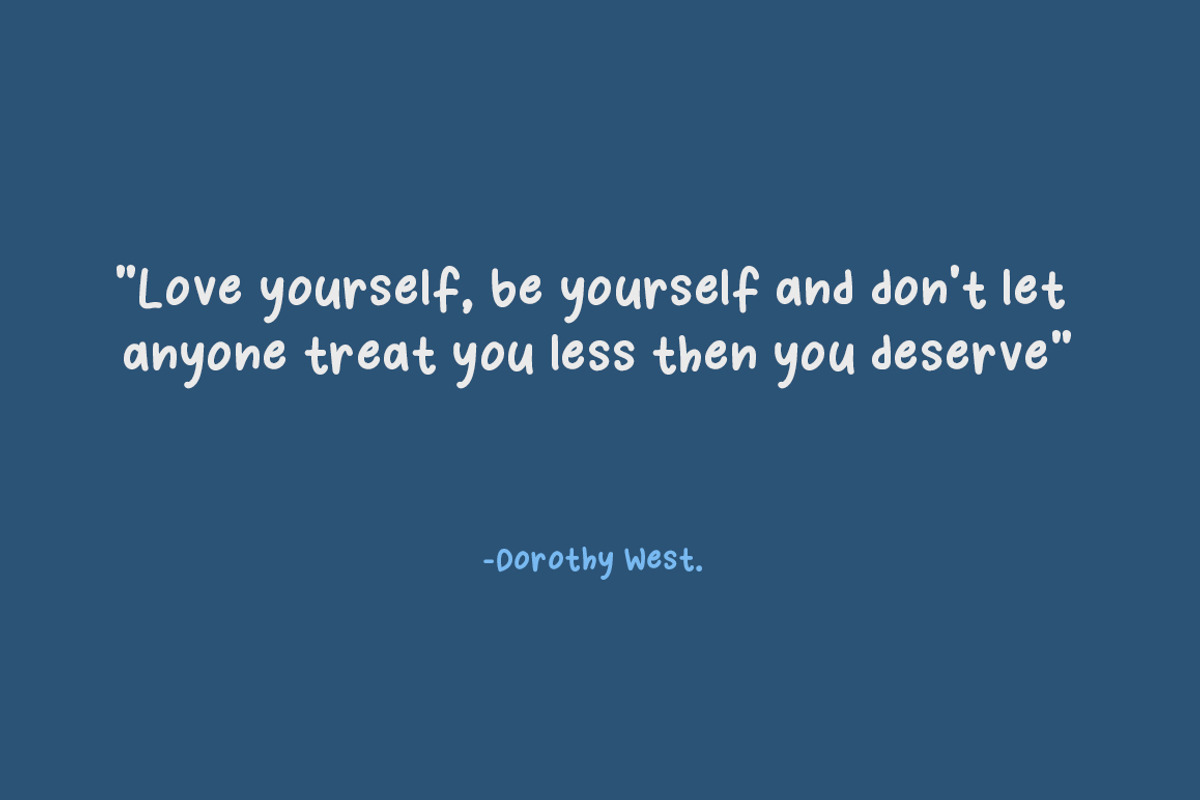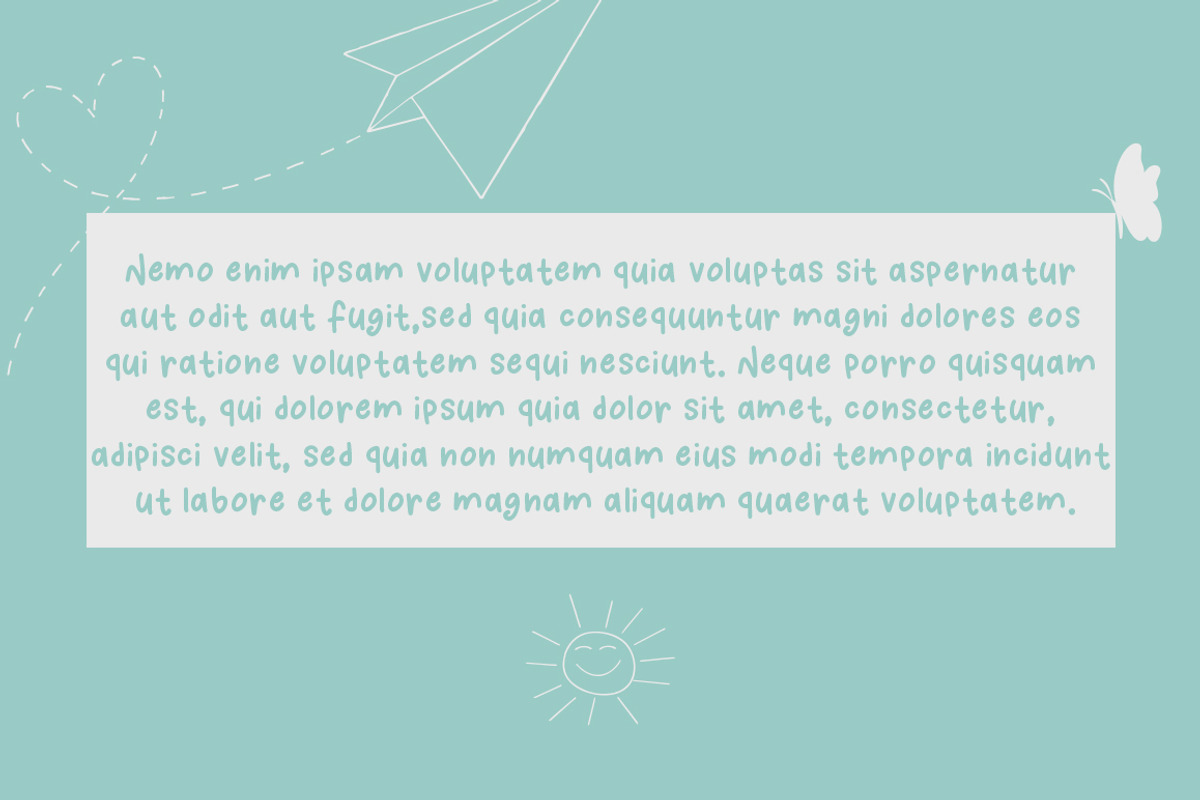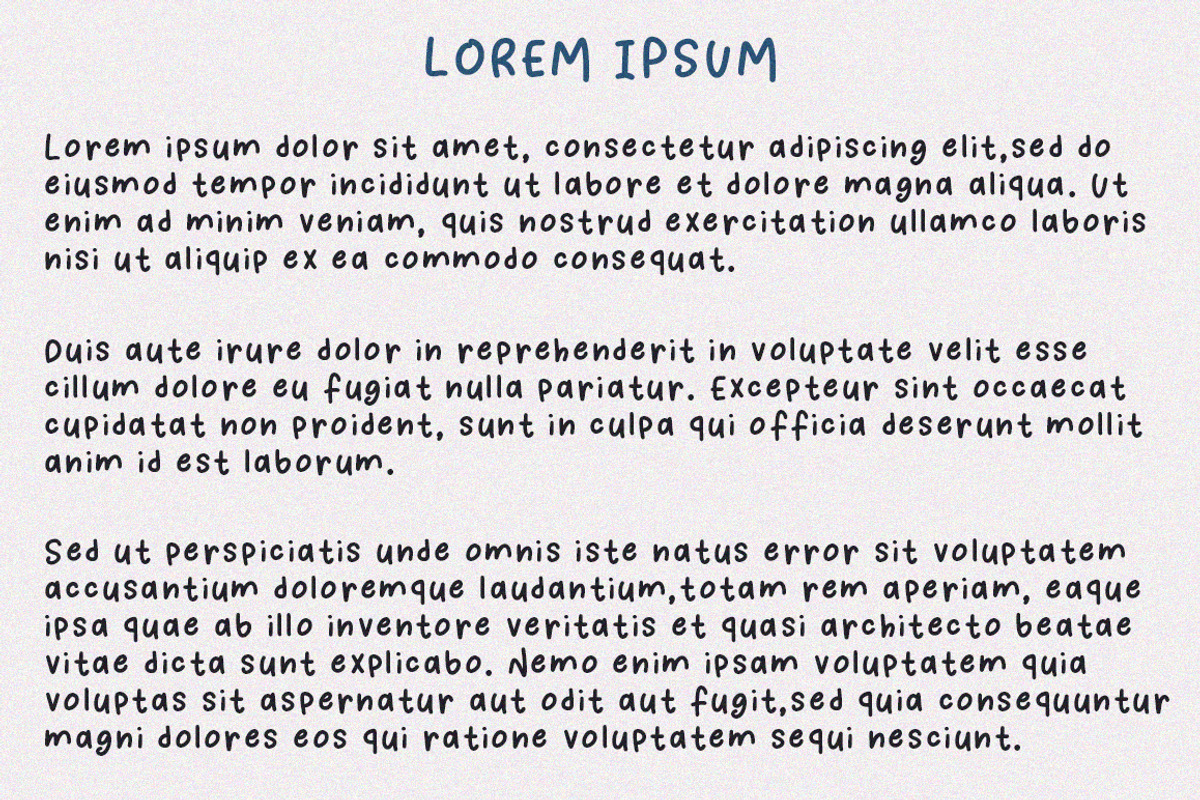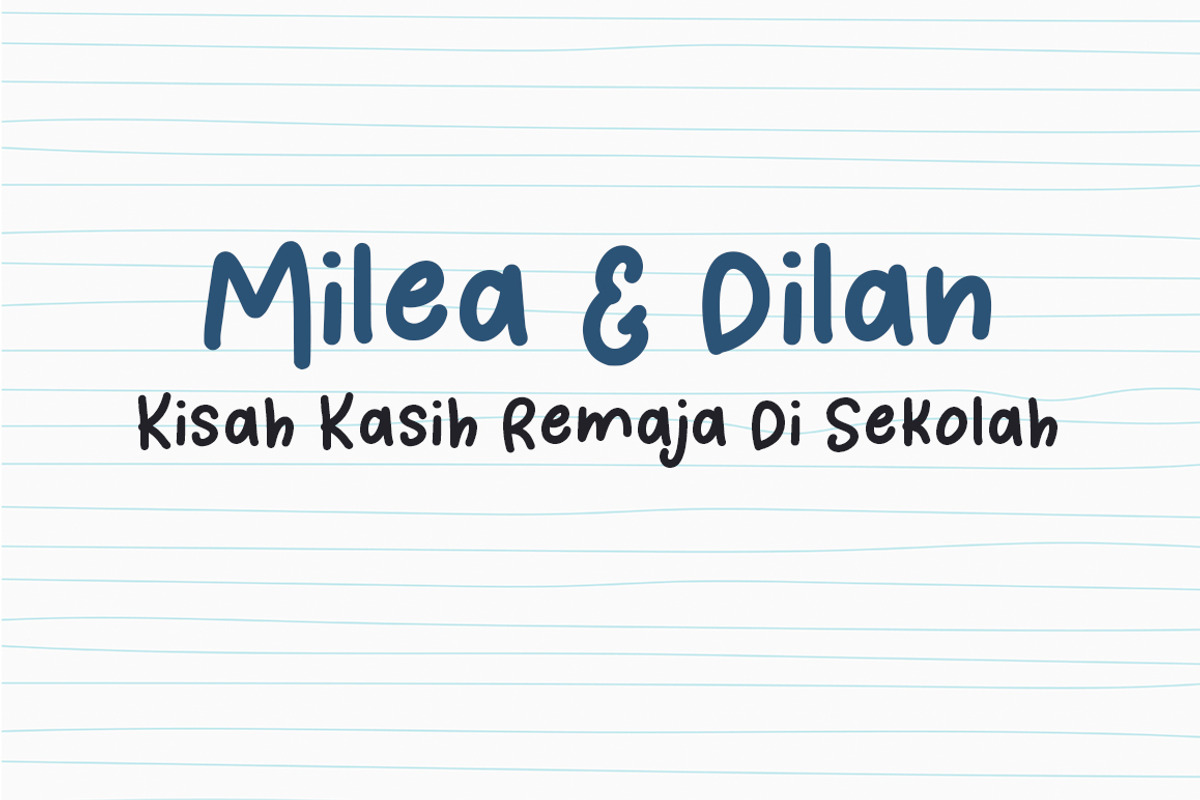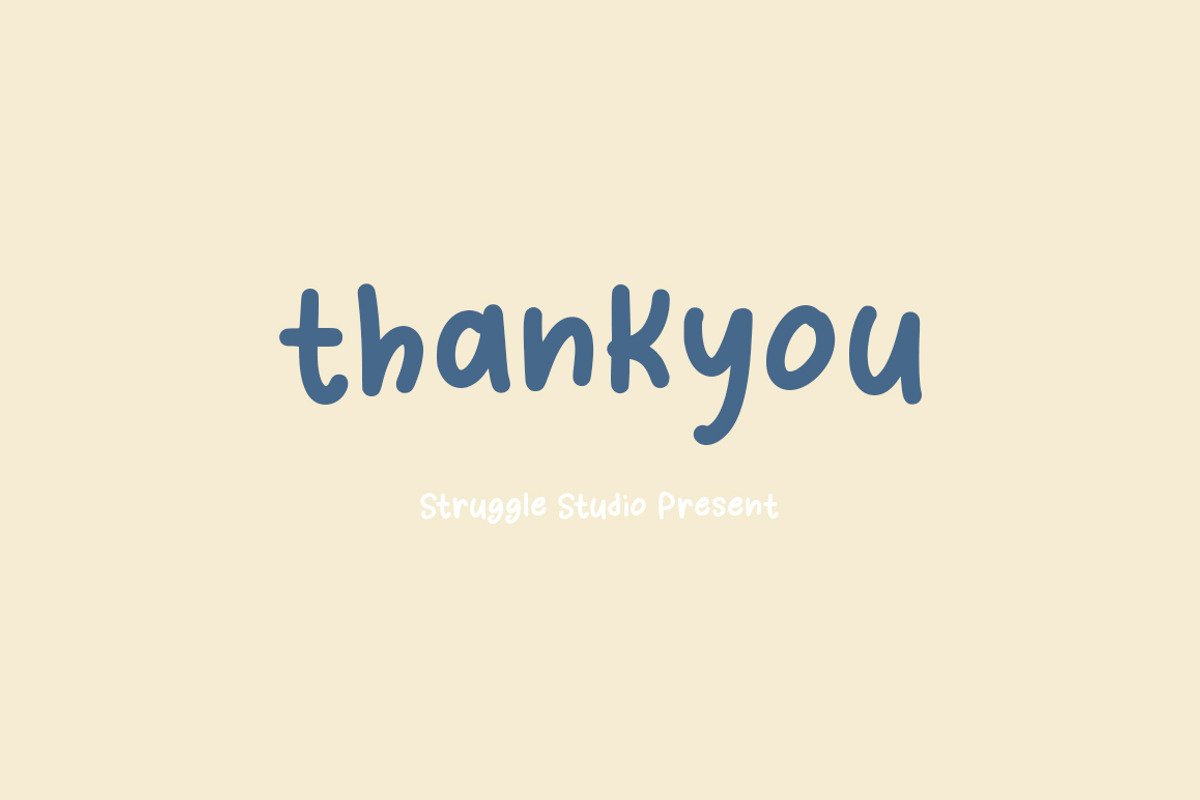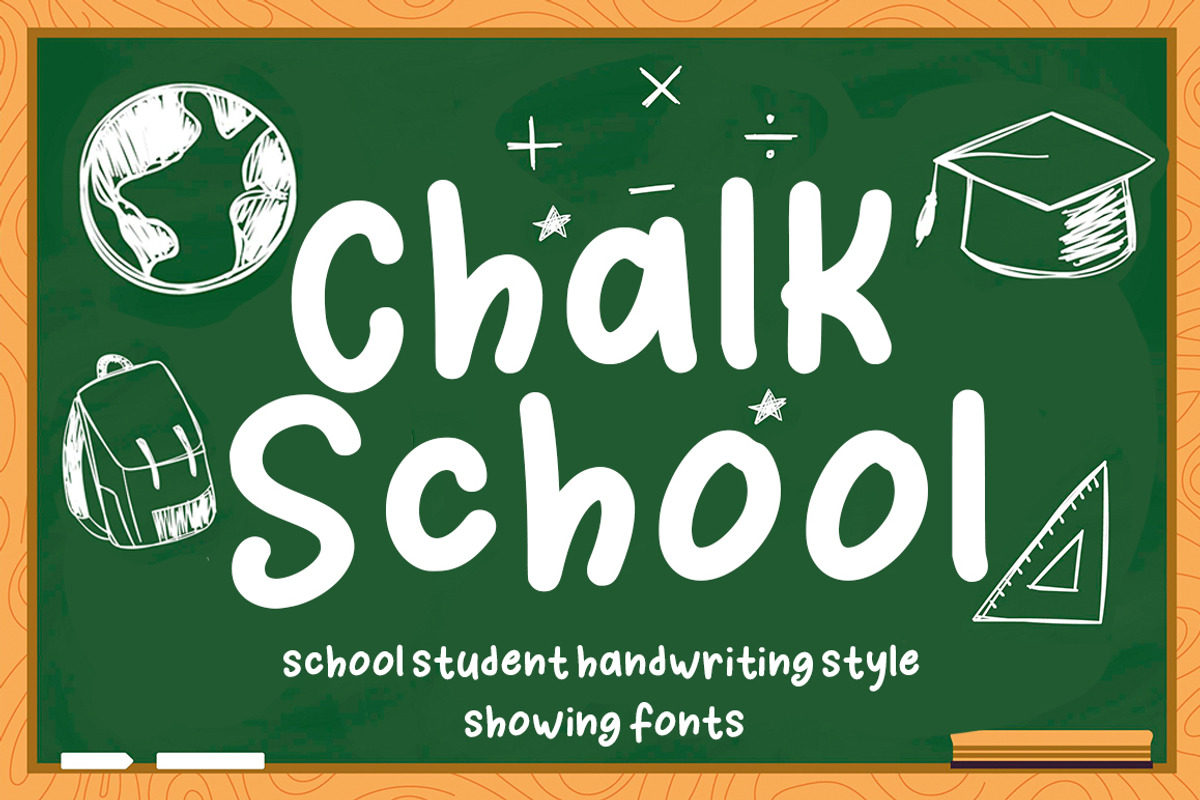
Chalk School
"Chalk School" is a playful handwritten font inspired by the classic look of chalk on a school blackboard. It brings a fun, friendly, and educational vibe, making it perfect for designs related to school, children, and classroom settings.
Rounded, casual lettering that mimics student handwriting. Chalk-texture effect for an authentic blackboard feel. Ideal for use in titles, posters, greeting cards, or any DIY project that aims to feel cheerful and educational. Includes extra school-themed doodles like a globe, graduation cap, backpack, and ruler, adding to the learning atmosphere. Perfect for:
Educational materials (classroom posters, worksheets, etc.) Children’s product branding School-themed birthday invitations Creative back-to-school projects